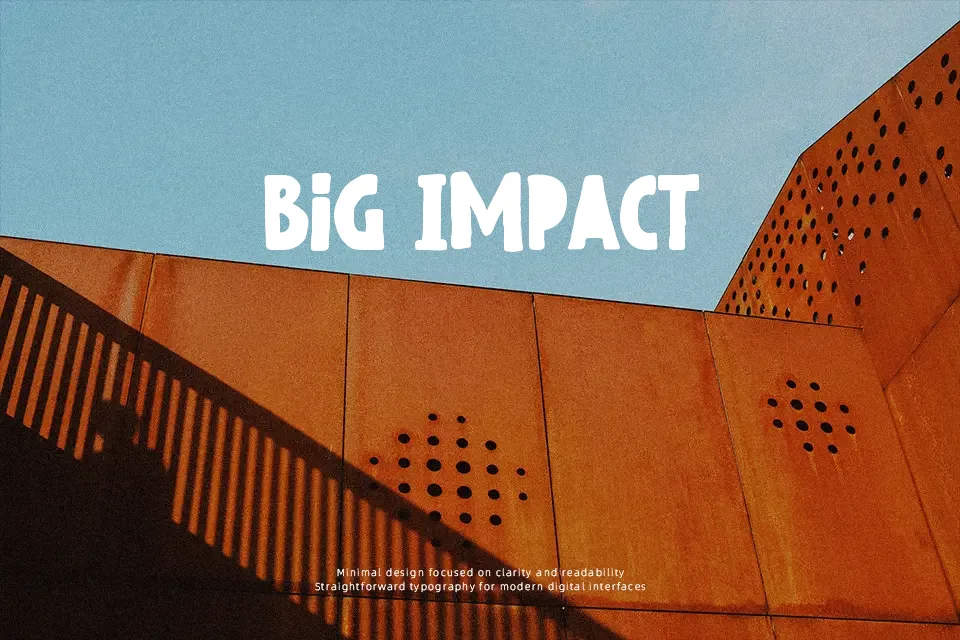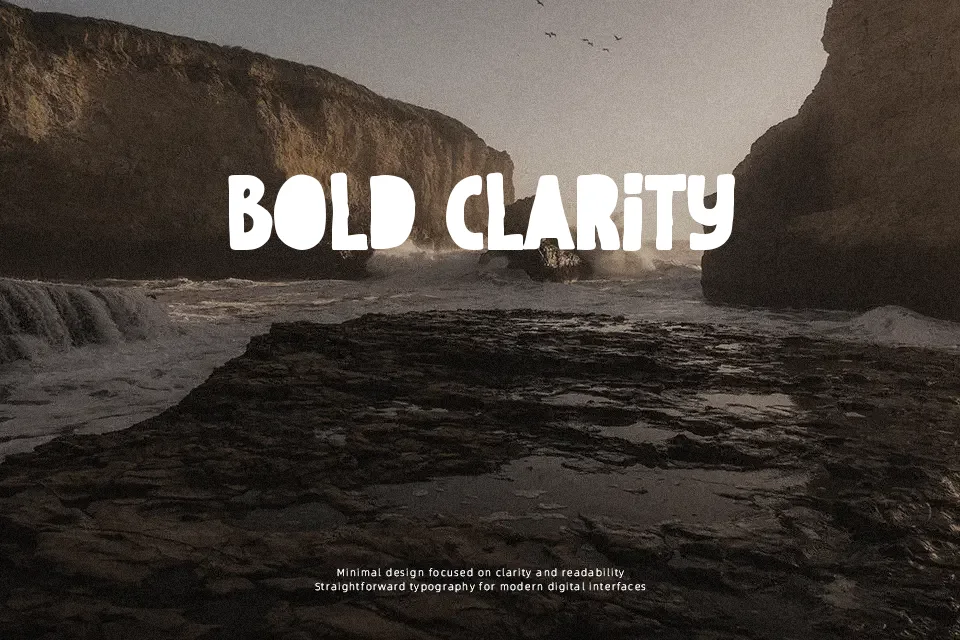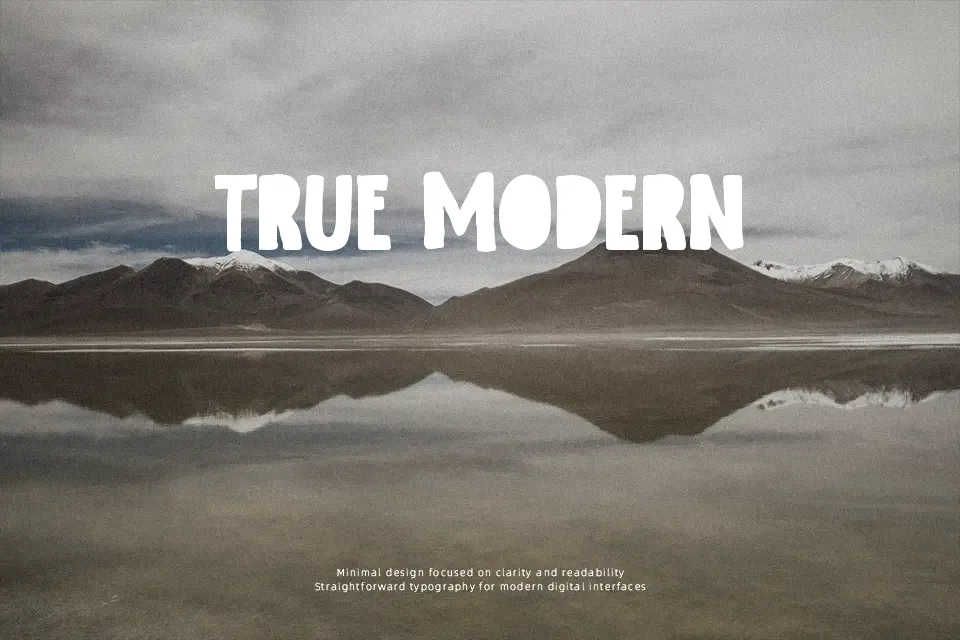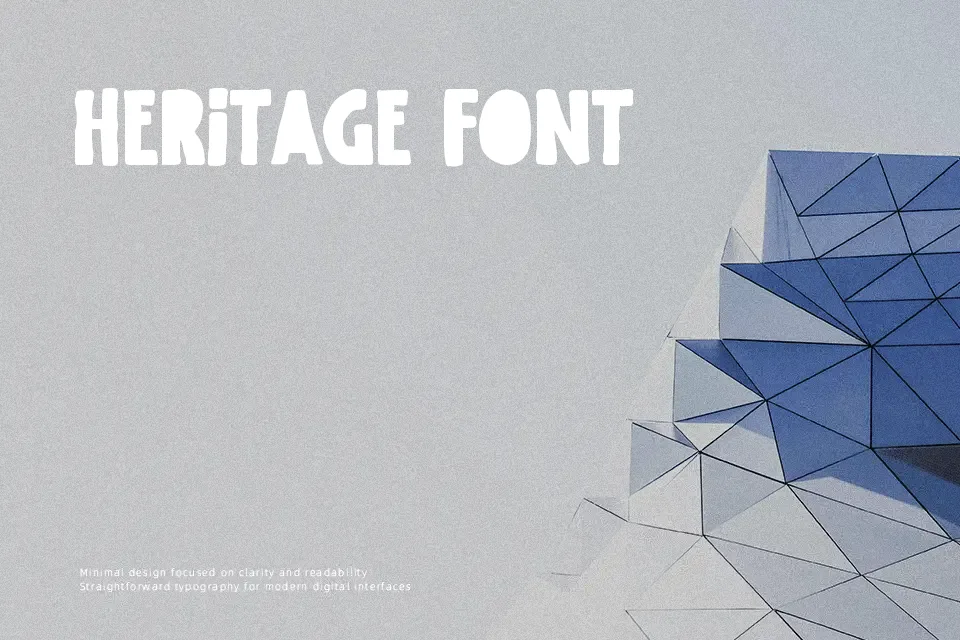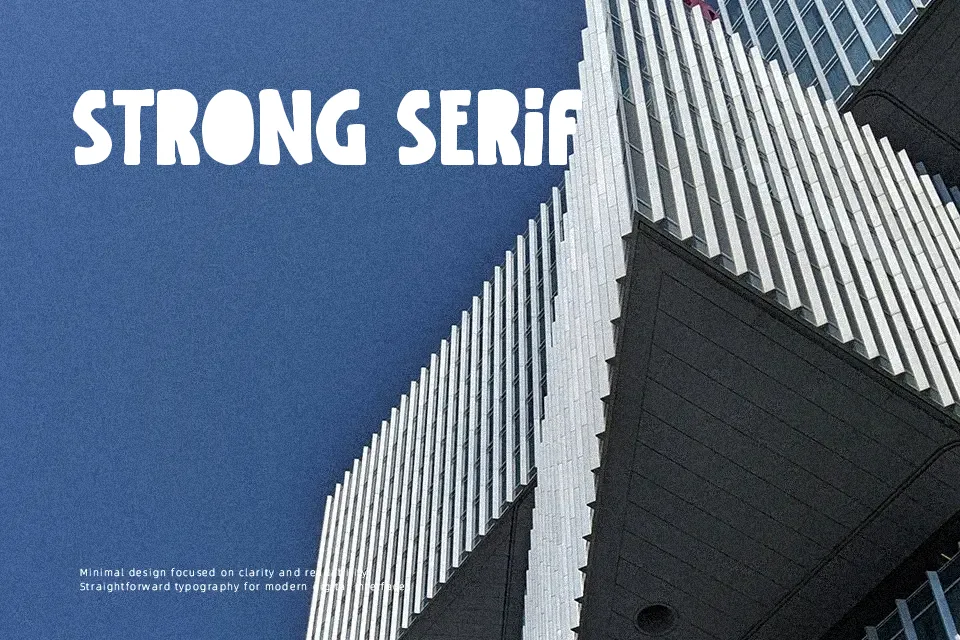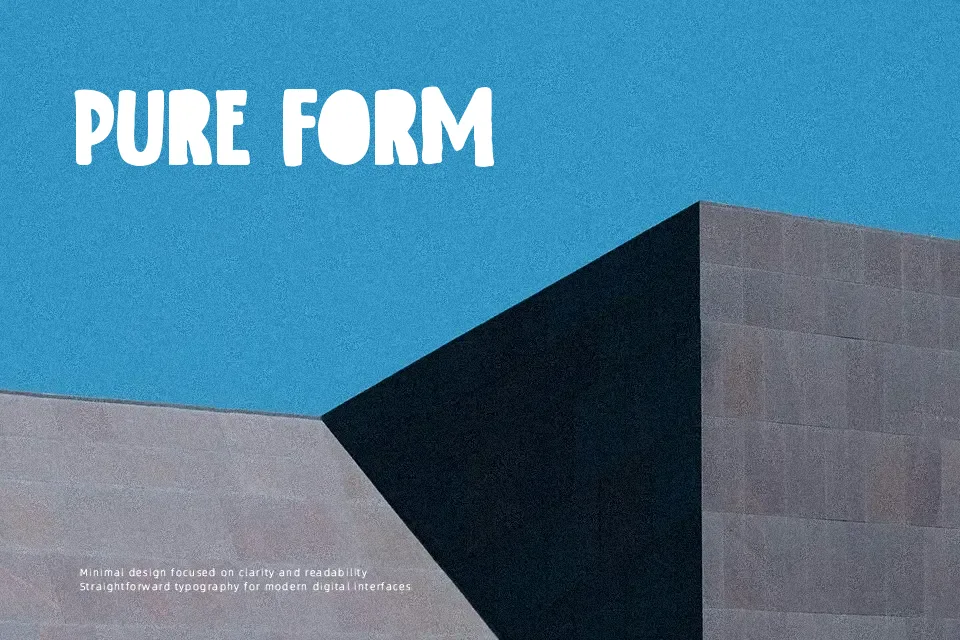
Not Found Font
Designed by Gassstype
Not Found uses energetic, casually drawn letterforms with uneven contours and a quick handwritten rhythm. The strokes appear bold and fluid, while the varied proportions give short words a spontaneous, display-oriented character. Spacing is best appreciated in larger text, where the individual shapes remain distinct and the irregular baseline adds movement. It works well for expressive headlines, labels, and graphic compositions that need an informal visual voice. The loose construction helps it feel immediate rather than polished. Small text and longer passages are less comfortable to read because the decorative forms can become crowded.
Best For: poster headlines,product labels,apparel graphics,social media graphics
Not Ideal For: long paragraph text,small interface labels,corporate reports,technical manuals
Perfect for headline, packaging, and poster, with a bold and decorative style.